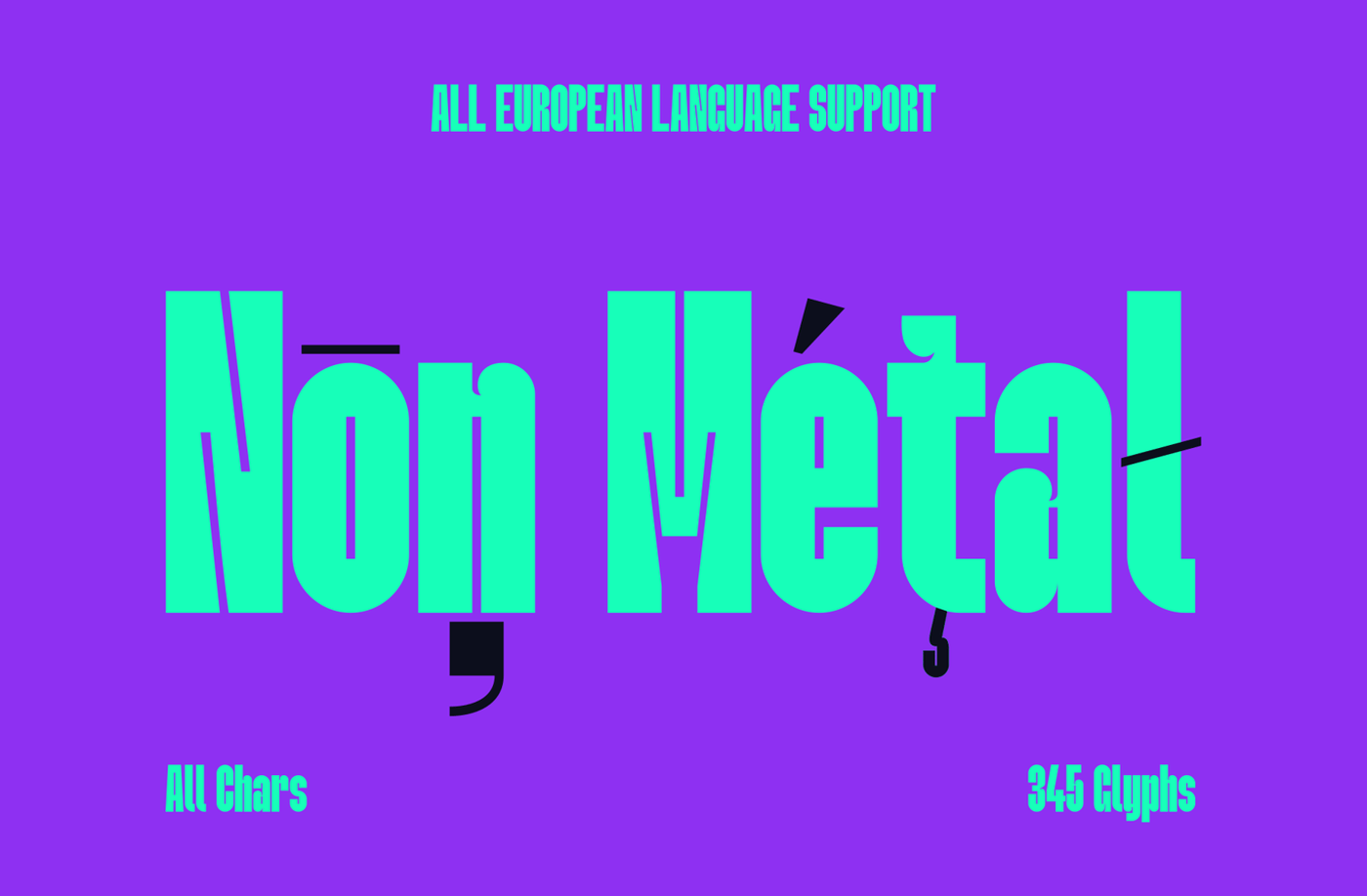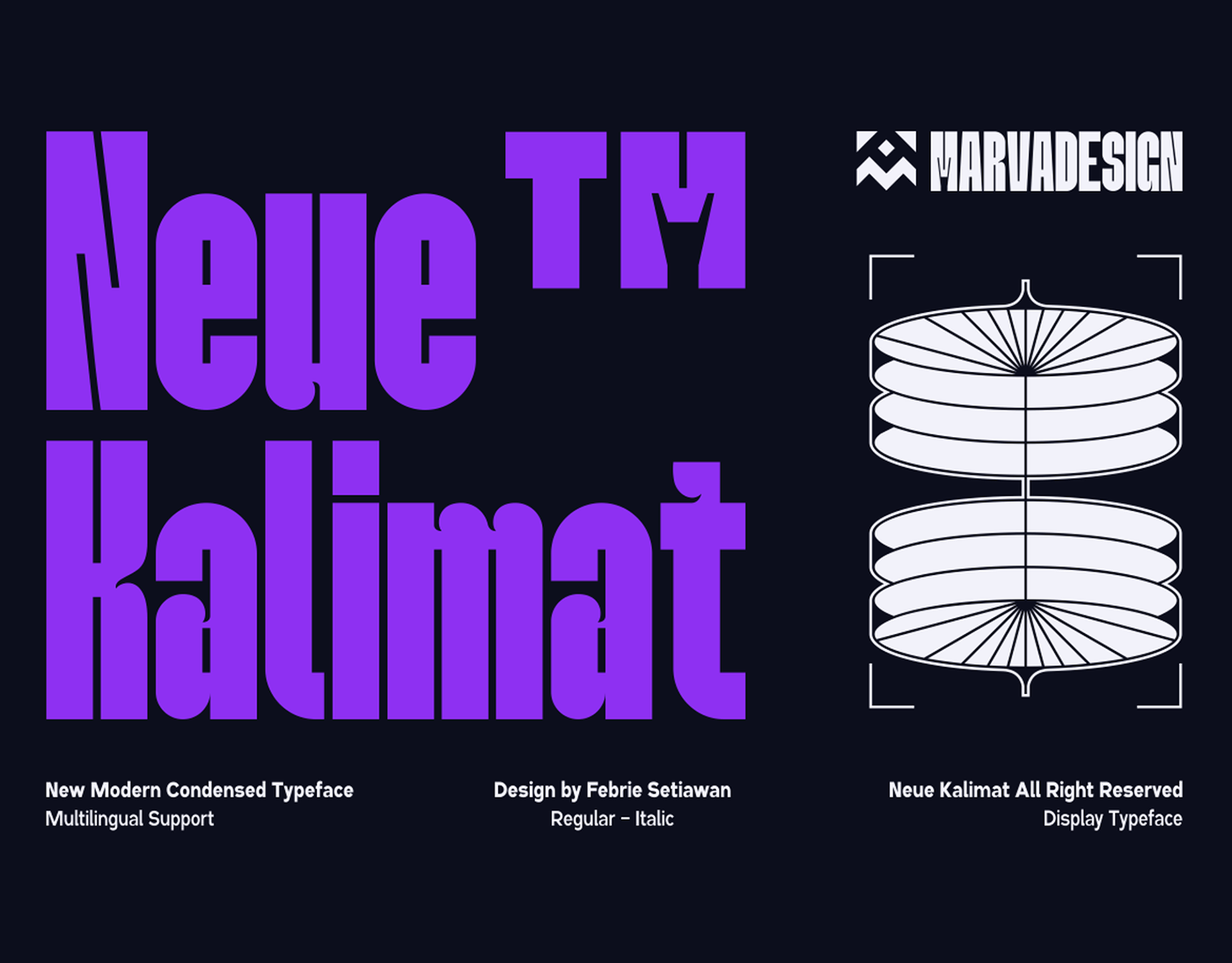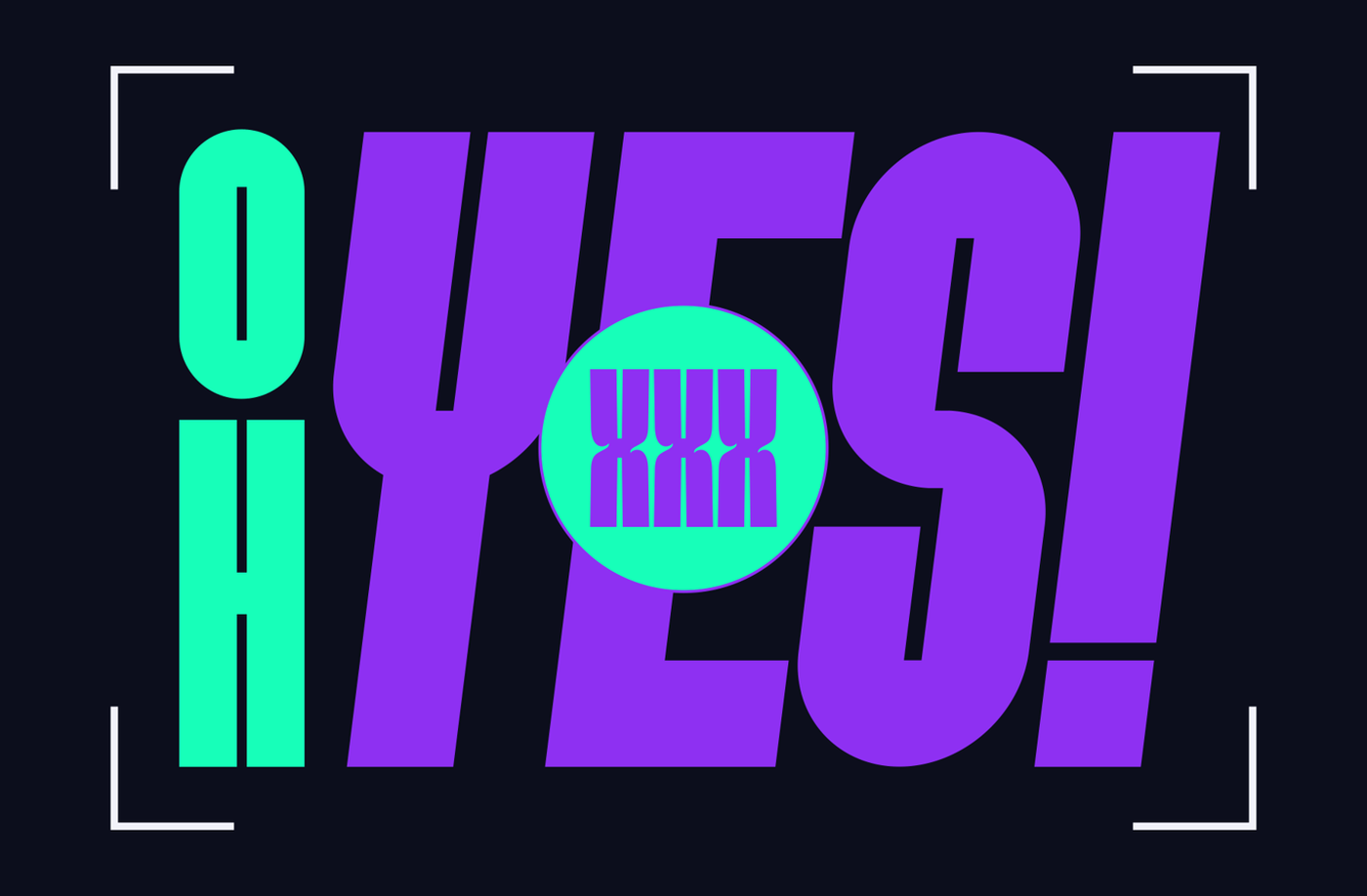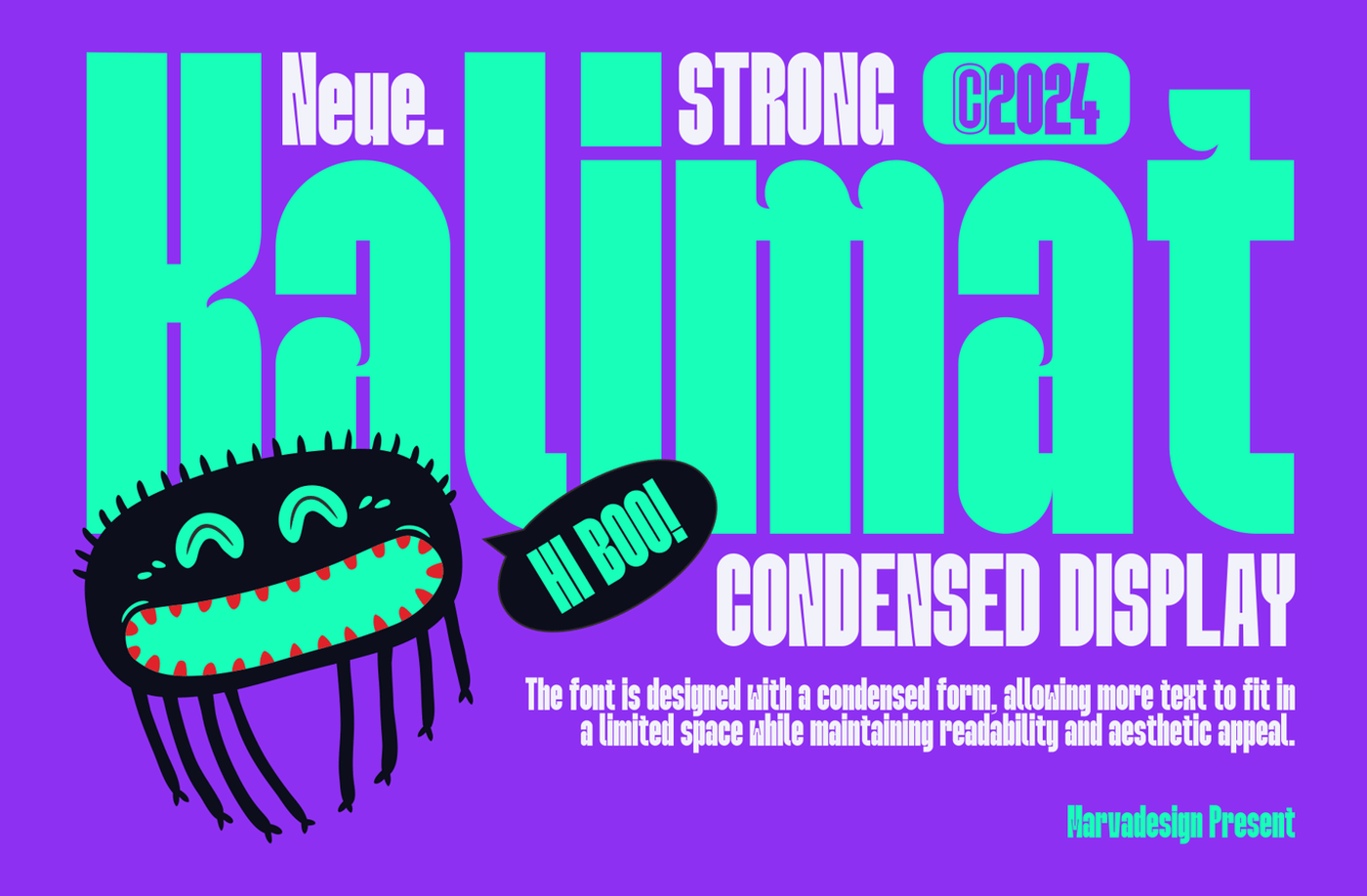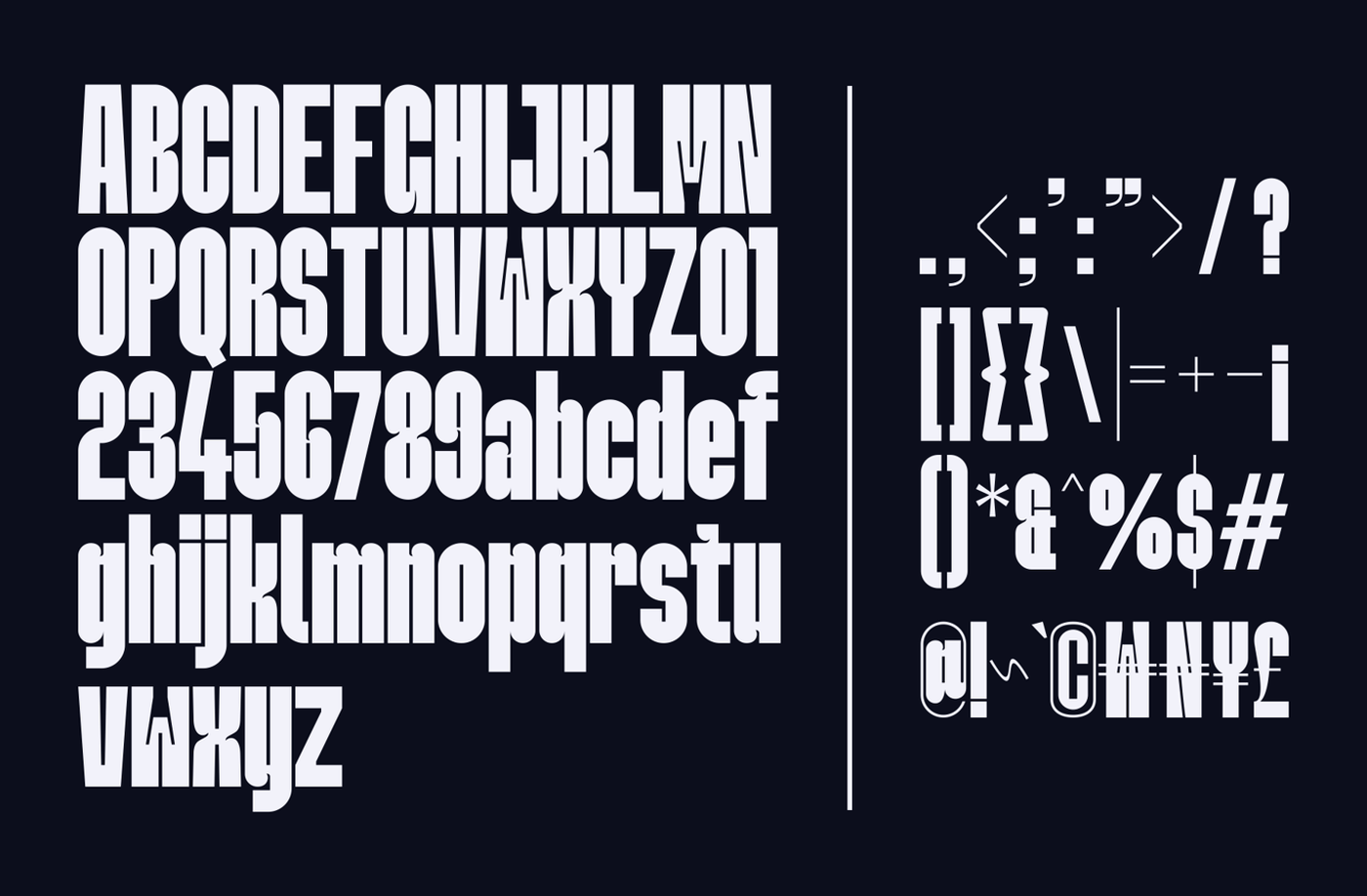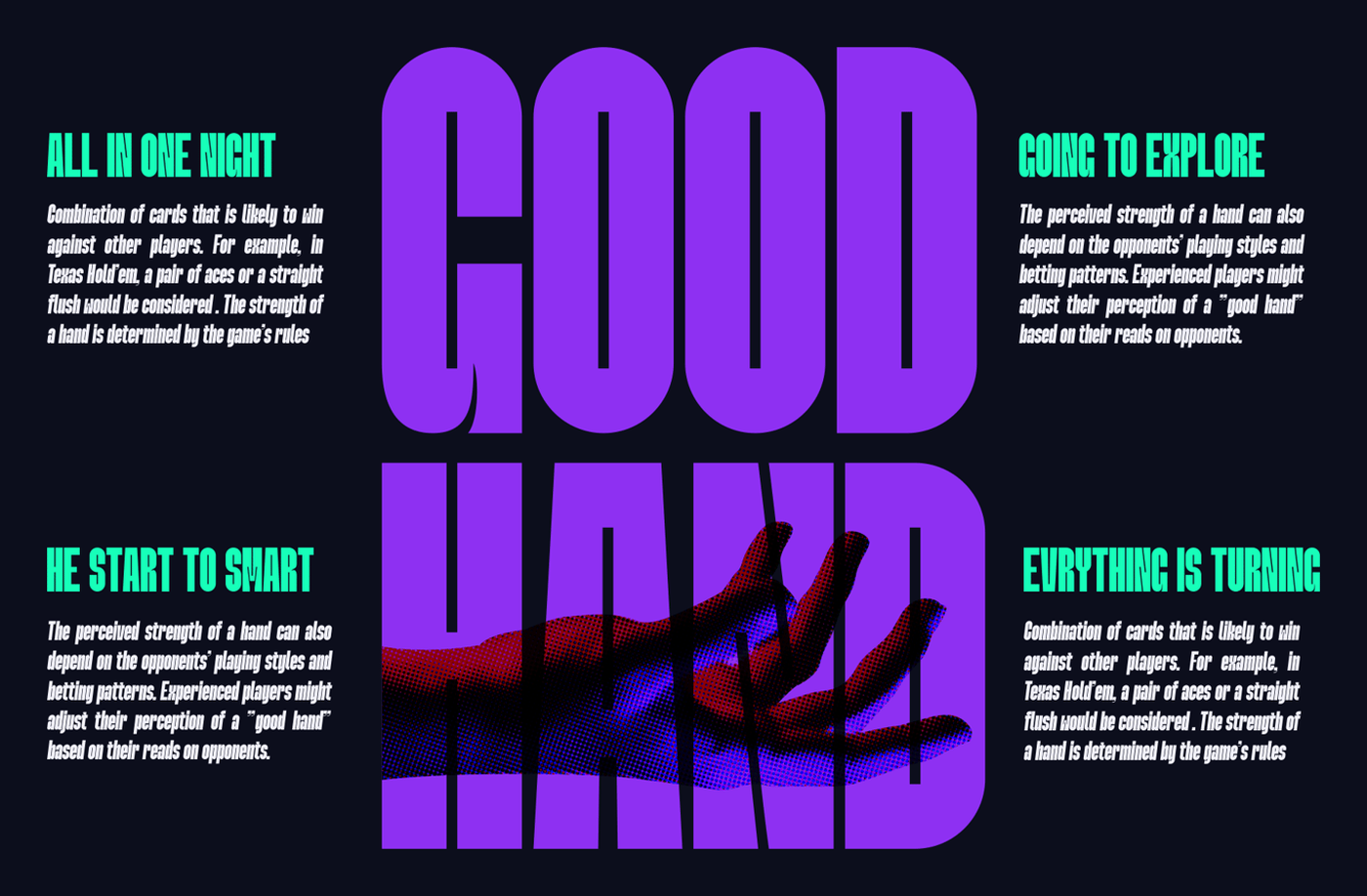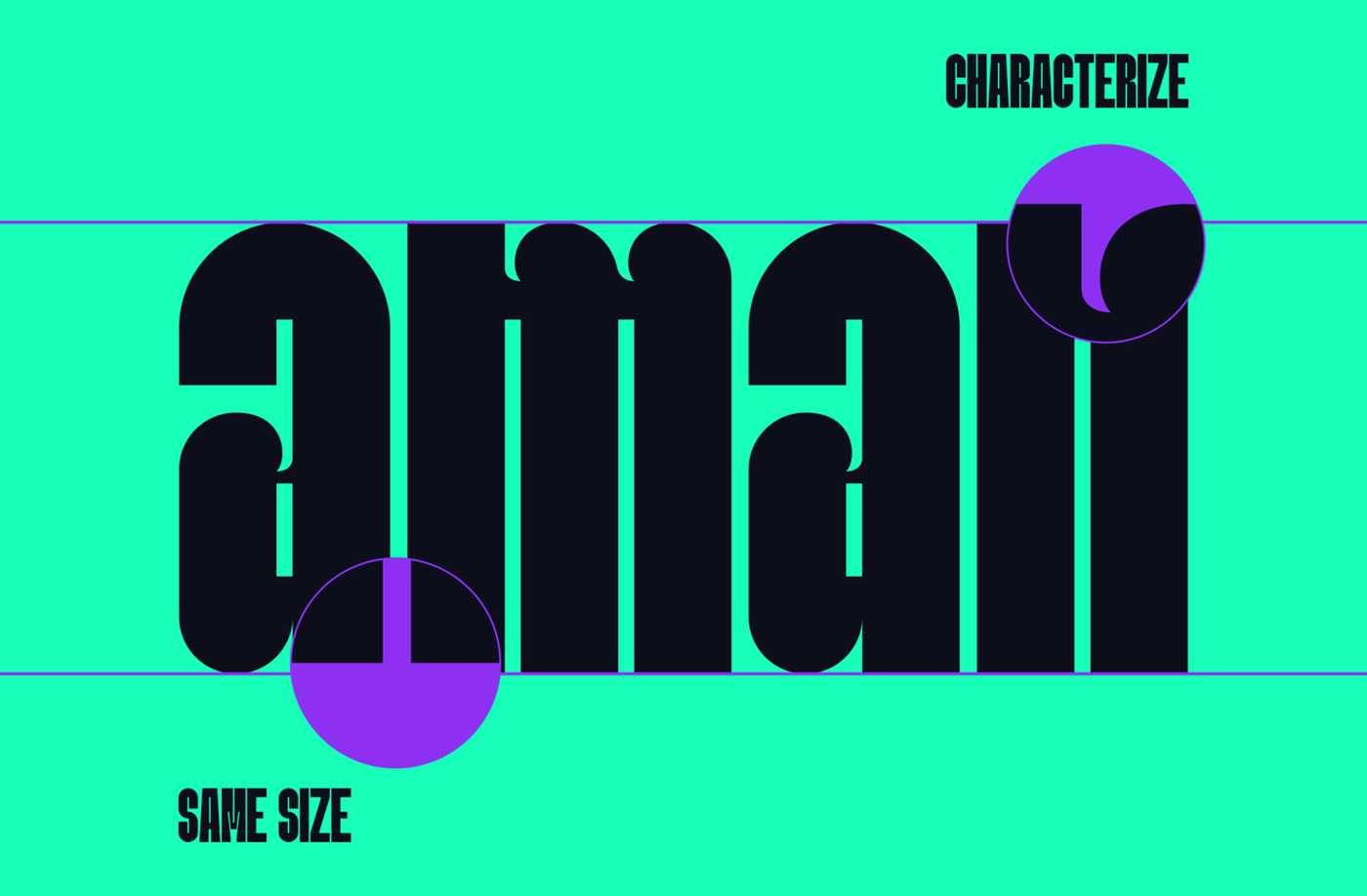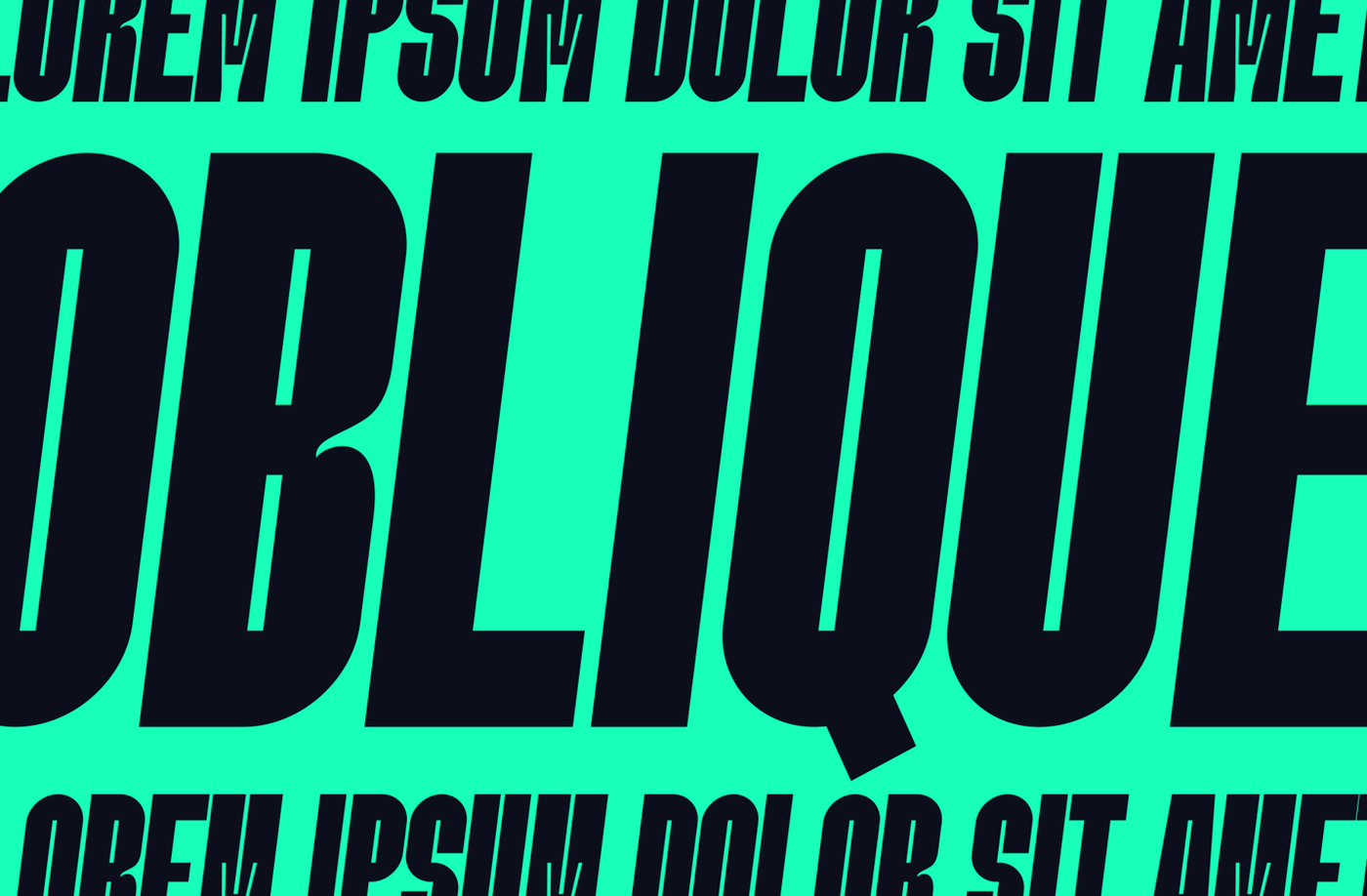
Neue Kalimat - Modern Condensed Font
Neue Kalimat is a modern, sans-serif typeface designed for impactful, high-visibility usage. This font stands out with its unique character detailing, making it an excellent choice for headlines, posters, and other display purposes. The font is designed with a condensed form, allowing more text to fit in a limited space while maintaining readability and aesthetic appeal. Distinctive Strokes One of the defining features of Neue Kalimat Condensed Display is its distinctive strokes present in certain characters. These strokes are especially prominent in some of the lowercase and uppercase letters, adding a unique flair to the typeface.